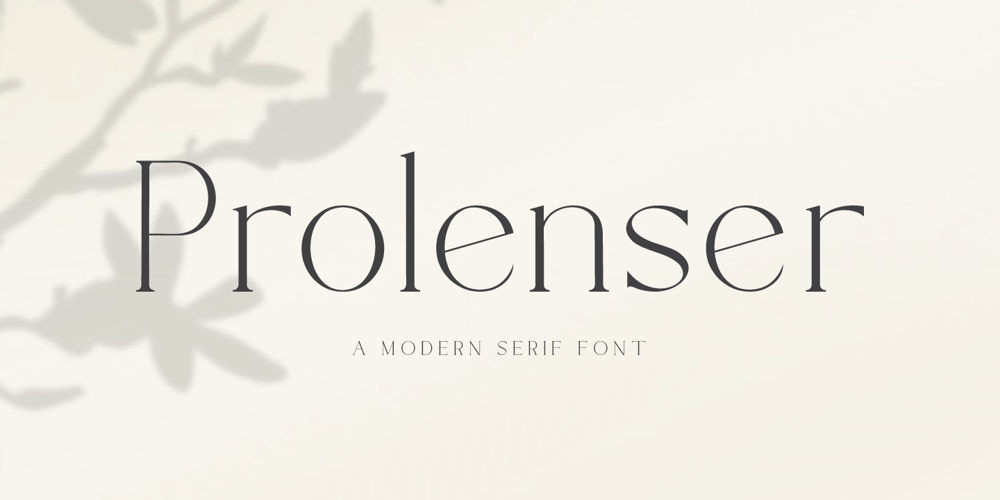
Prolenser Font Family was designed by Hayinah and published by Rockboys Studio. Prolenser contains 1 styles and family package options. Prolenser is an elegant serif font that combines classic sophistication with contemporary refinement. Its design features distinctive, well-defined serifs and graceful, flowing letterforms that exude a sense of luxury and professionalism. The font’s high contrast between thick and thin strokes enhances its readability while adding a touch of opulence. With its refined details and timeless appeal, Prolenser is ideal for high-end branding, editorial layouts, and formal invitations. Its elegant presence makes it a standout choice for projects that aim to convey both prestige and modernity.